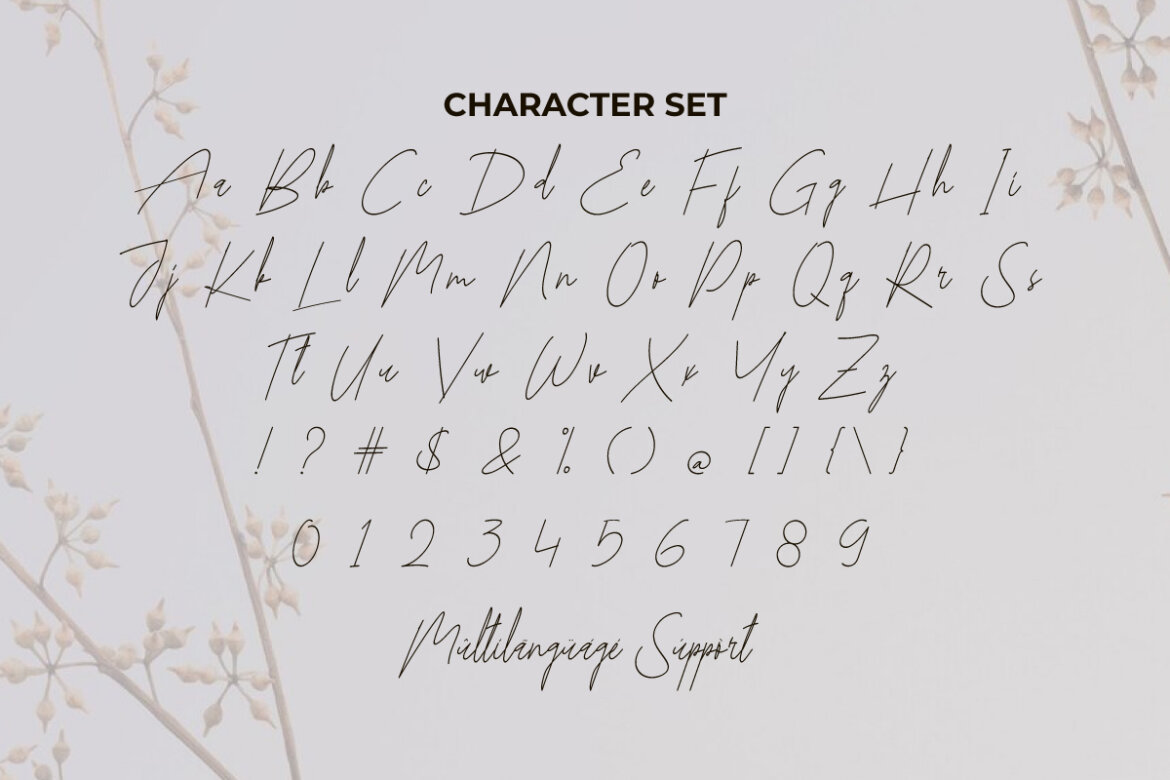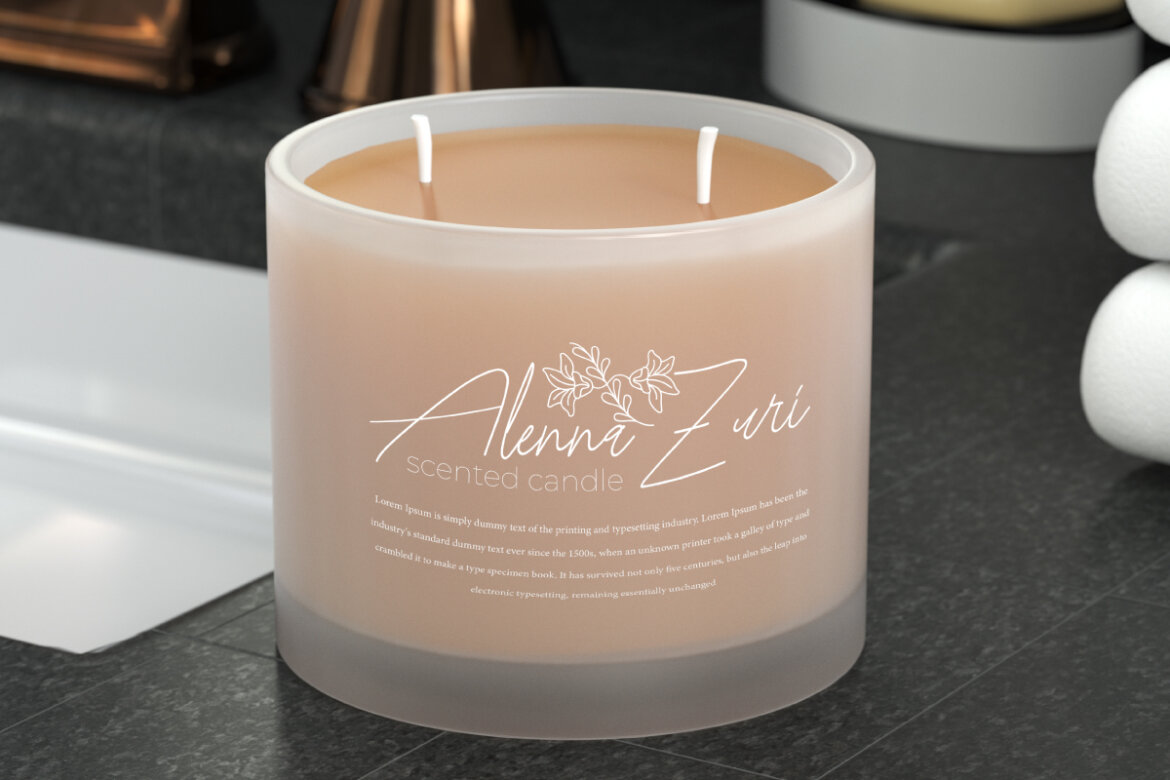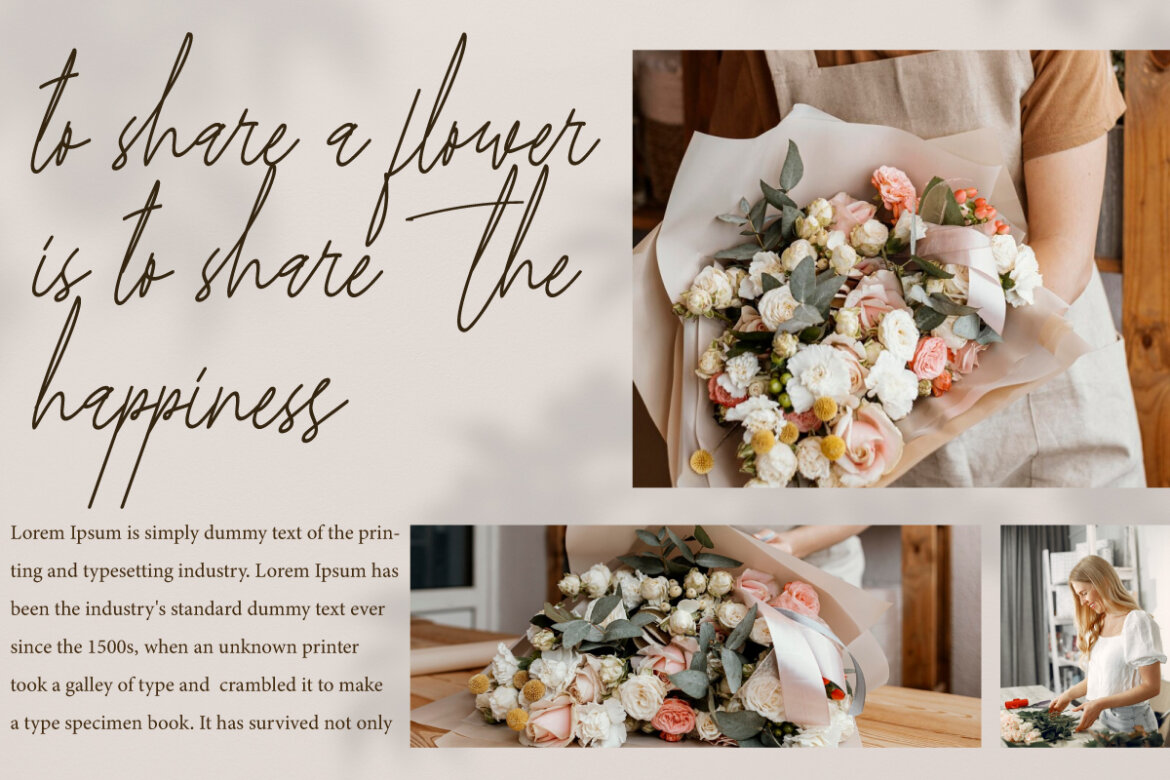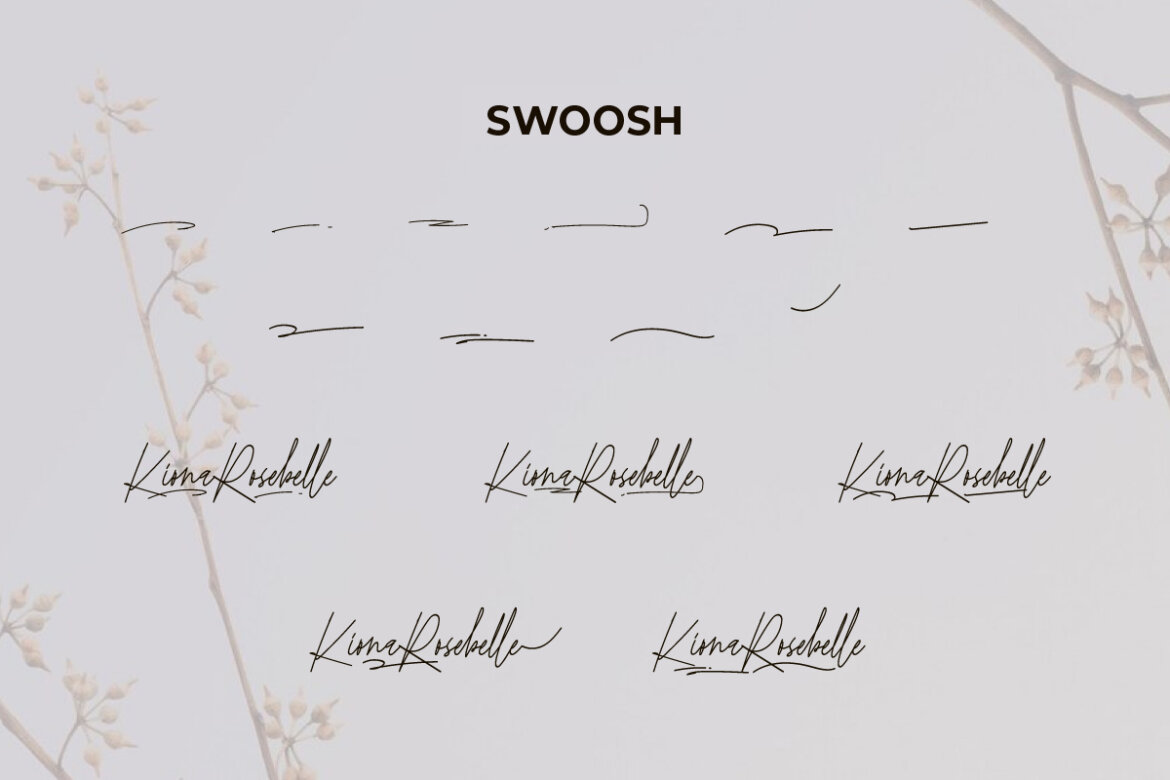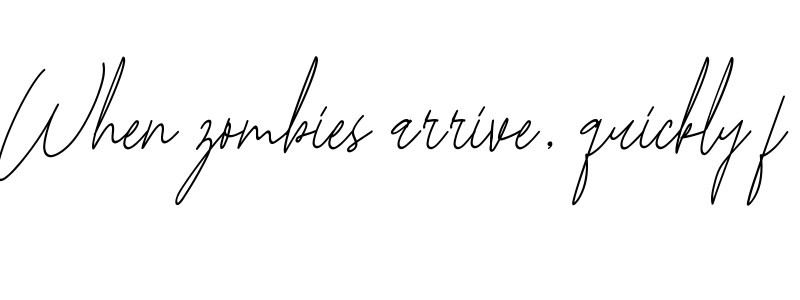
Kiona Rosebelle
Kiona Rosebelle Font is a classy minimalist monoline and simple handwritten signature font with a large collection of equally beautiful ligatures. Also there are many things that will amaze you. It can be used for a variety of projects such as branding, covers, greeting card, headers, invitations, labels, logos, mockup, product packaging, quotes, stickers, template, titles, watermarks, web design, and more.
Looking to bring a touch of elegance and femininity to your design work? Meet Kiona Rosebelle, a graceful signature script font designed to elevate your branding, packaging, and digital presence with effortless charm. Crafted with a delicate hand and flowing lines, Kiona Rosebelle Signature Font captures the essence of modern luxury.
Introducing Kiona Rosebelle — a signature script font that combines elegance, femininity, and modern sophistication in every curve. Whether you’re creating brand logos, wedding invitations, beauty product packaging, or Instagram quotes, Kiona Rosebelle delivers that high-end, handwritten feel that today’s brands crave.
Designed with modern branding in mind, Kiona Rosebelle Signature Font is perfect for logo design, wedding invitations, business cards, beauty packaging, blog headers, and more.
Kiona Rosebelle Font is an elegant casual typeface designed flawlessly to create a delicate and charming look. You can use it for authors, beauty vlogger, bridal boutique, cafes, cosmetic, event venue, fashion florist, graphic design, handicraft, photography, restaurant, skincare, spa salon, wedding organizer, and much more.
Kiona Rosebelle Font comes with a complete set of Uppercase and Lowercase Basic Characters, Numbers, a large range of Punctuation, Symbols, Ligature and Swoosh. It is supported with multilingual characters and ready to use both on Windows machine or Mac with simple installations. It’s tested to work well in the Adobe Apps (Illustrator, Adobe InDesign, Adobe Photoshop) CorelDraw, and others. PUA Encode Characters means you can access all the characters easily – Fully accessible without additional design software.